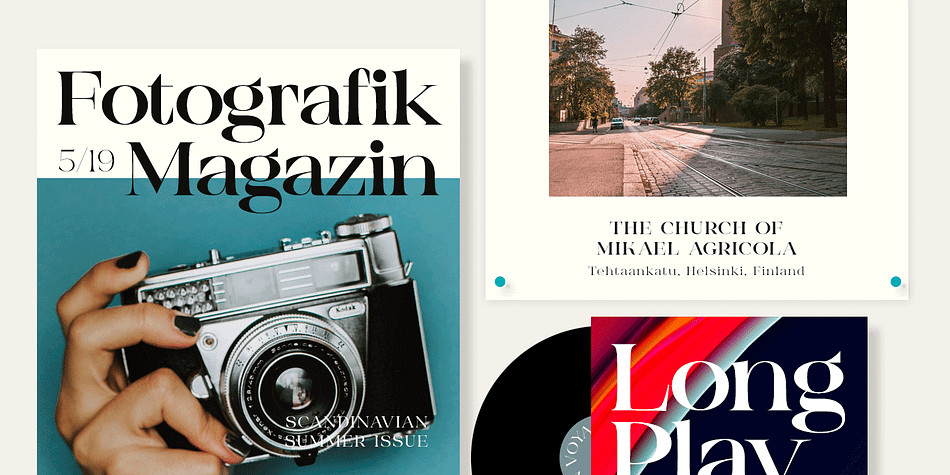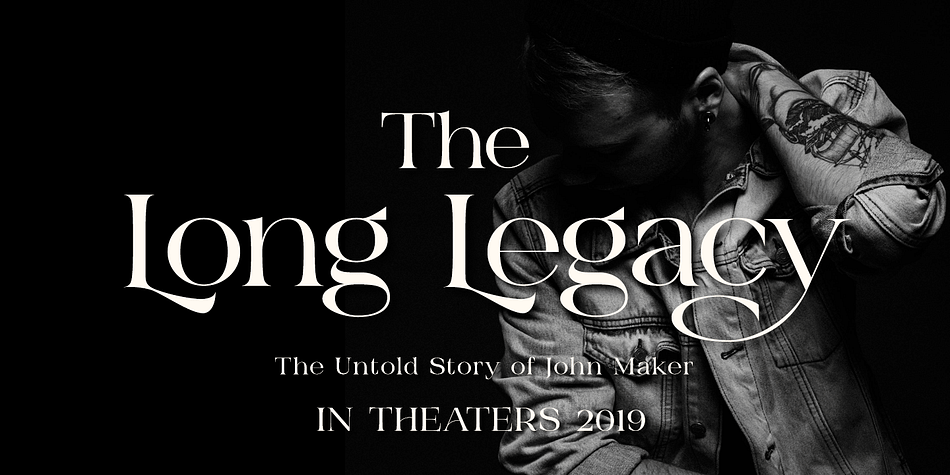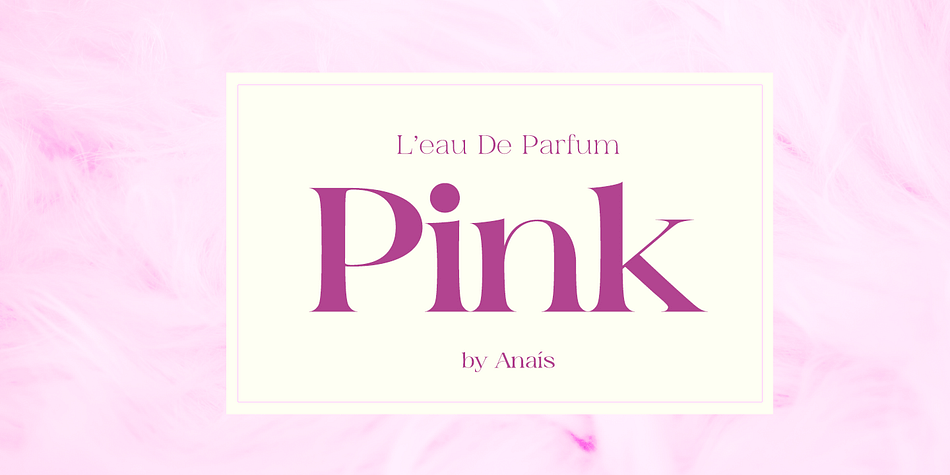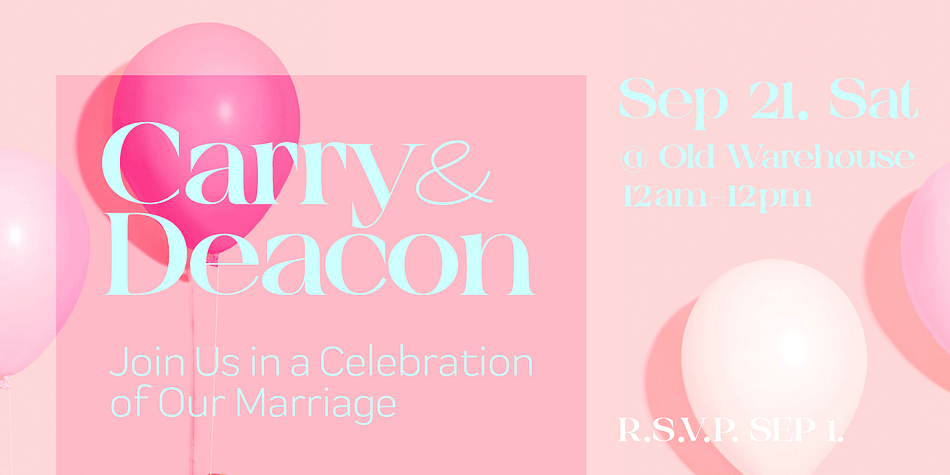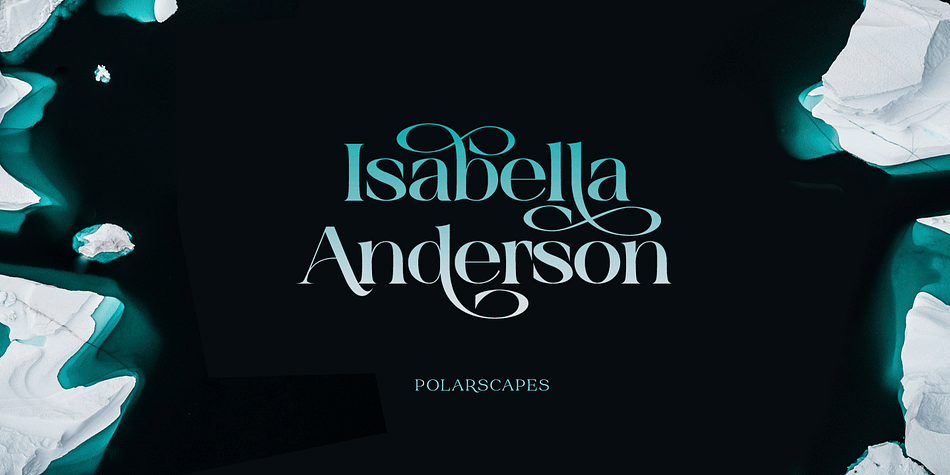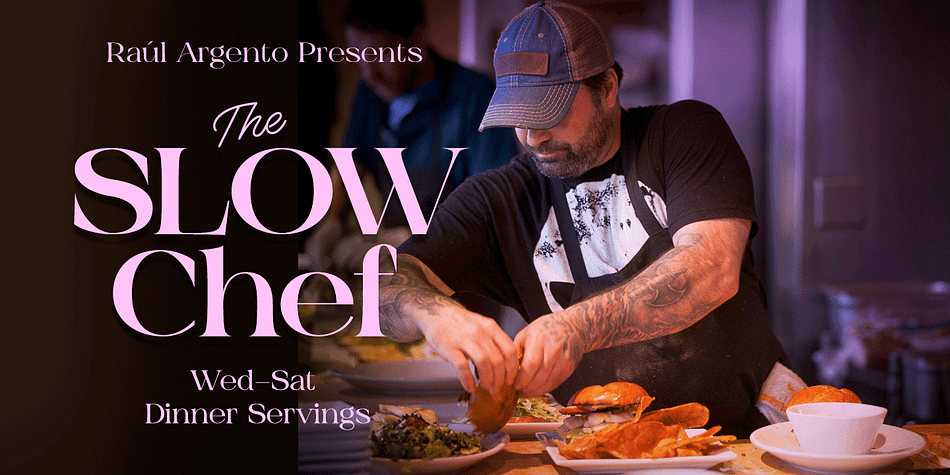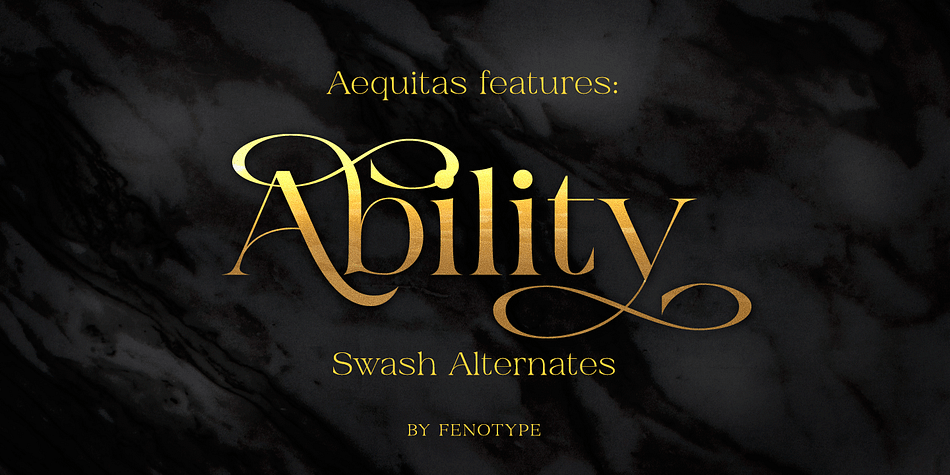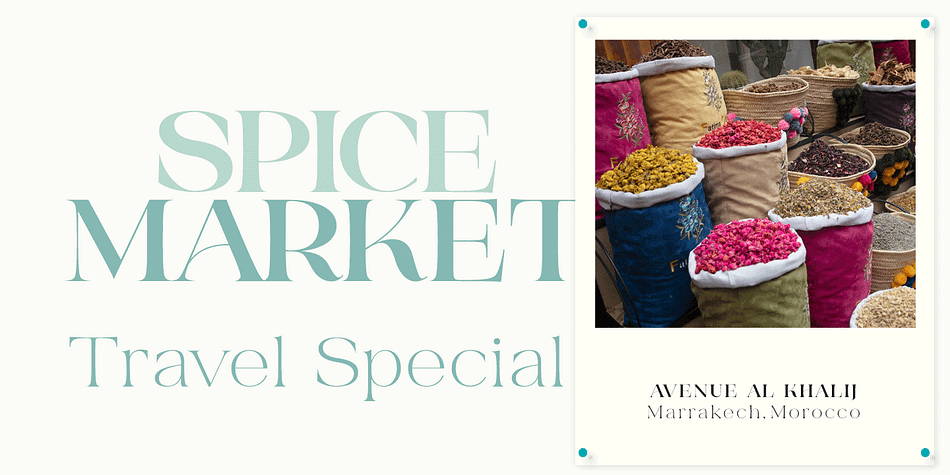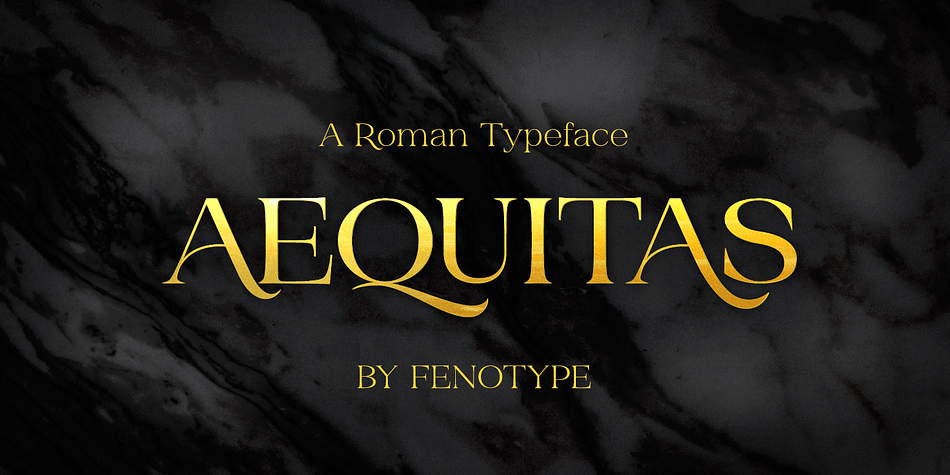
Designed by Emil Bertell, Aequitas is a display serif and serif font family. This typeface has three styles and was published by Fenotype.
Aequitas is an expressive Roman Serif with wide characters and three weights.
Aequitas is equipped with Swash and Stylistic Alternates and it’s great for fashion, branding, packaging or editorial use.